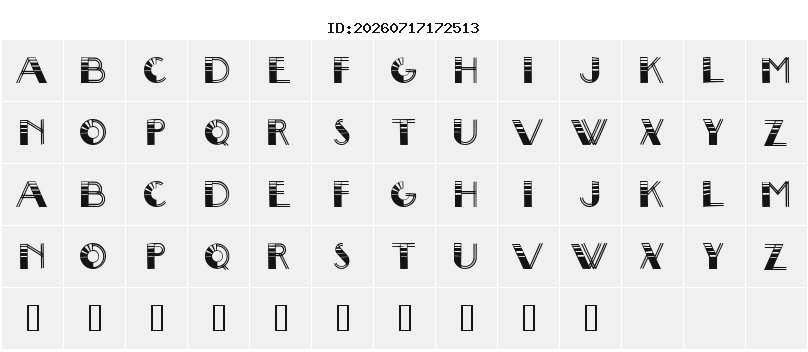
• Font Name: Big Lou
• Full Font Name: Big Lou
About Big Lou.ttf
Big Lou.ttf is a modern, elegant sans-serif font designed for ultimate readability and visual harmony. Perfect for branding, headlines, web design, and print materials.